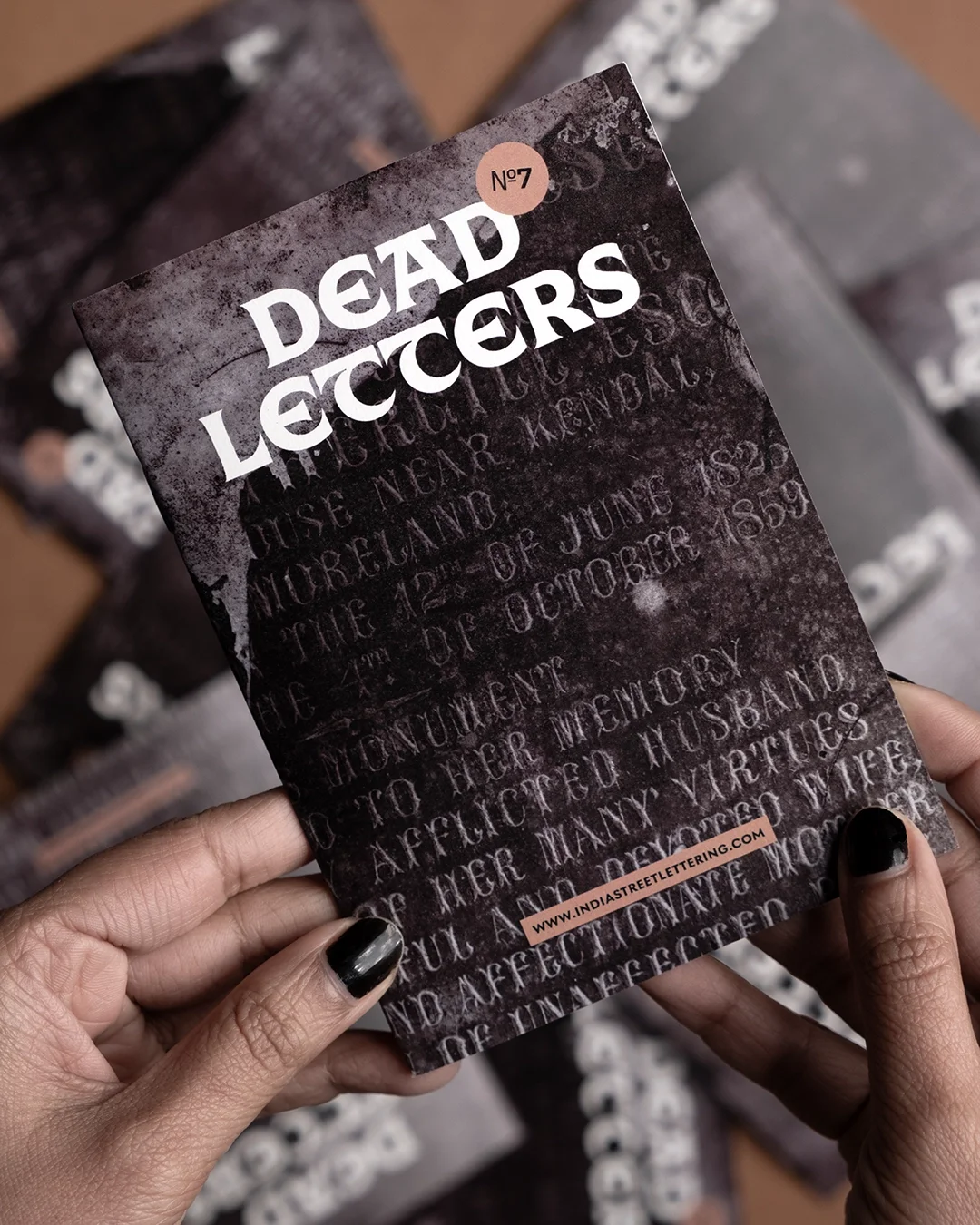
Matra Type is the design and research practice of typeface & graphic designer Pooja Saxena. Her work focuses on design in and for Indic scripts, notably Devanagari, and studying typographic visual languages from India. Pooja is the author of India Street Lettering (2026, Blaft Publications).
With clients ranging from Apple and Google Fonts to Zubaan Books and the Centre for Internet & Society, recent work includes multilingual branding for a local medical practice, Gulmohar Healthcare; and custom Devanagari lettering for a literary magazine.
India Street Lettering zines celebrate the diversity of letterforms on signages in India’s streets. Like turns of a kaleidoscope, they illuminate patterns — established and unexpected — to expand our understanding of typographic forms and styles, and the conventions for their use.